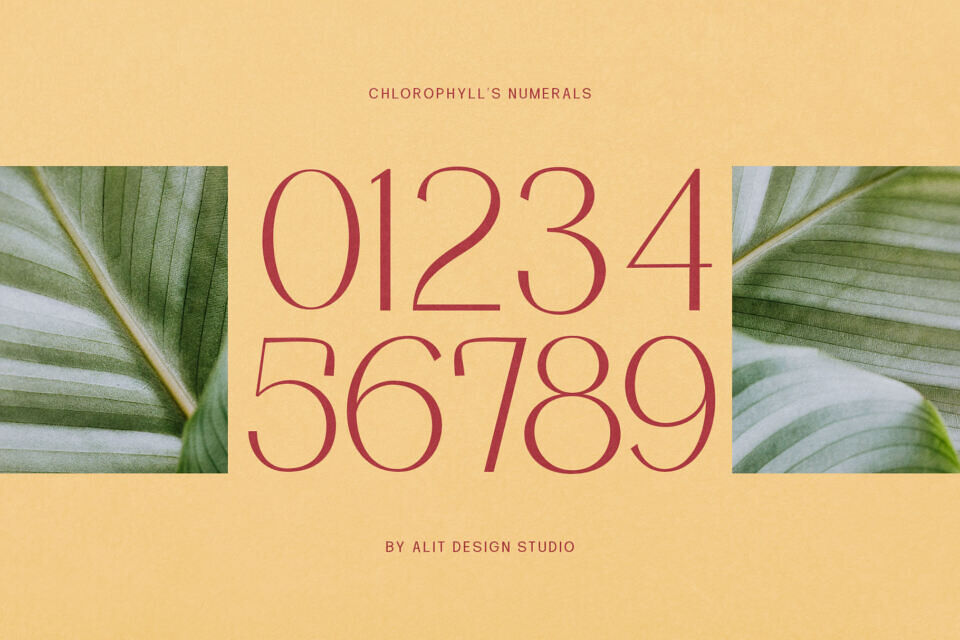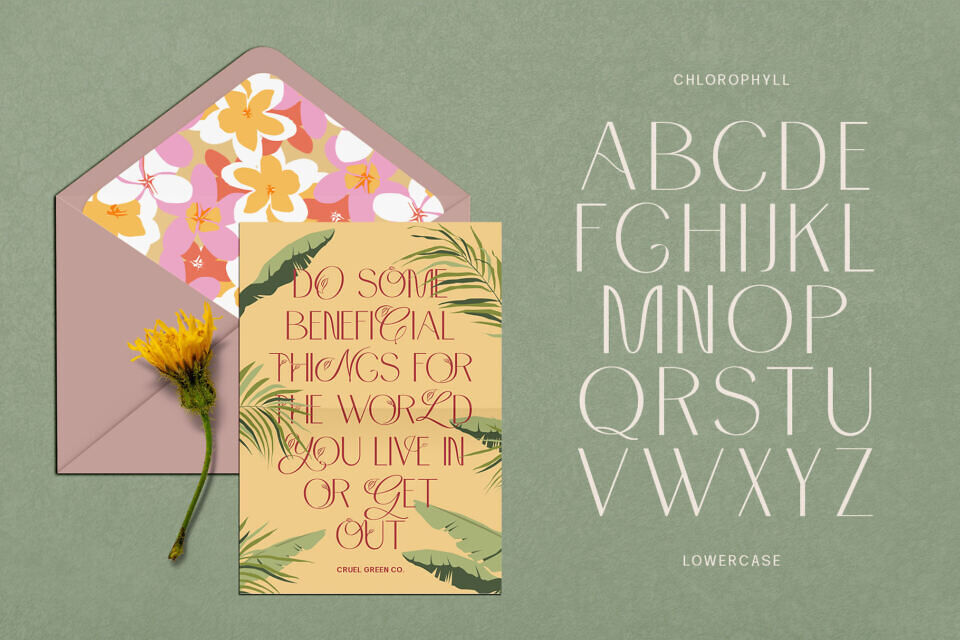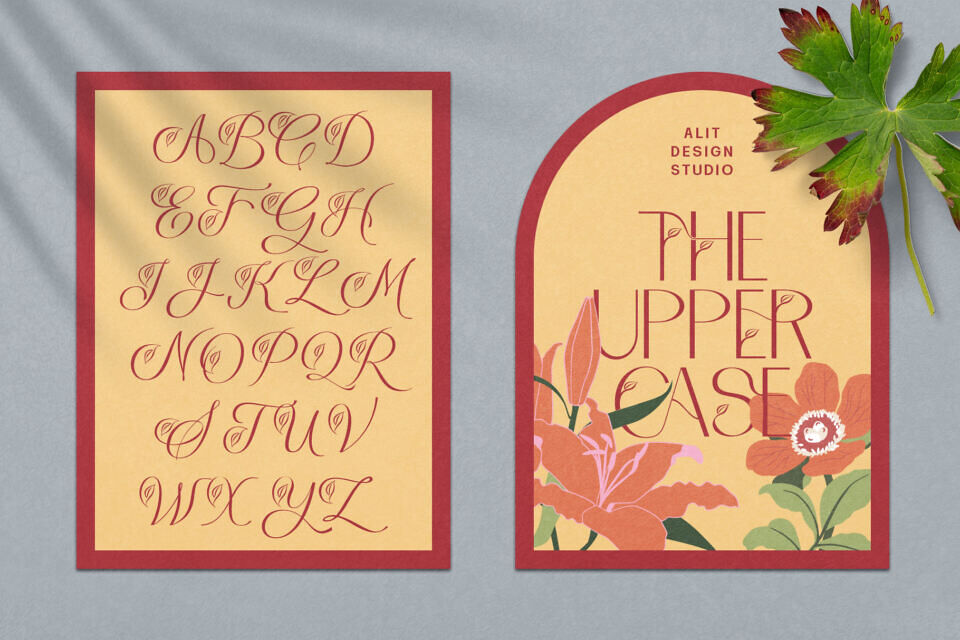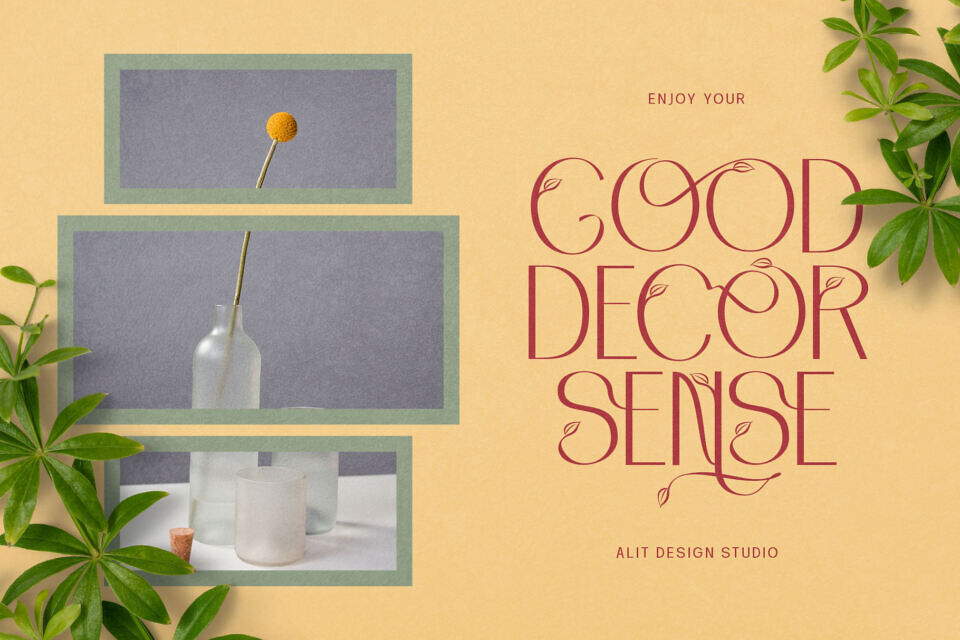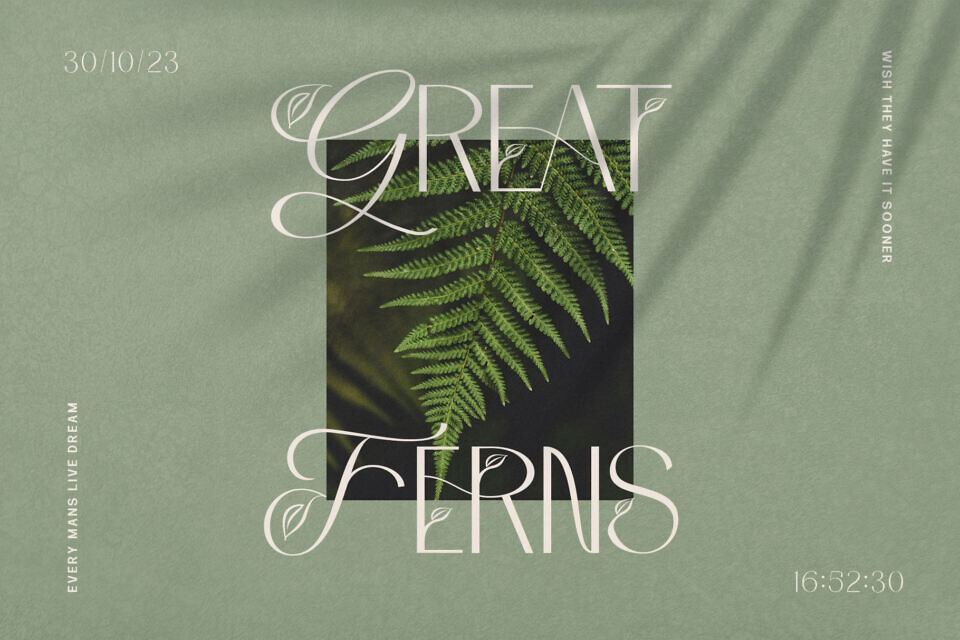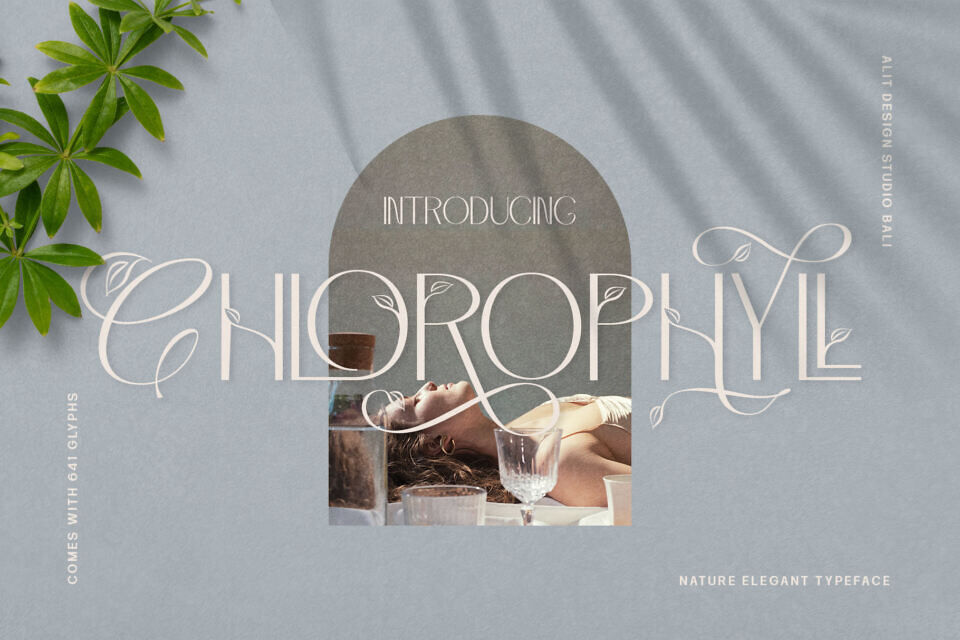
Chlorophyll Font
Chlorophyll is a refined sans serif font that blends modern simplicity with nature-inspired charm. Subtle leaf motifs enhance each character, creating a fresh, organic look. Perfect for eco-conscious branding, garden-themed invitations, or farm-to-table menus, Chlorophyll adds elegance and natural appeal to any project.
With a clean, versatile design and an extensive character set, it ensures readability and sophistication across digital and print formats. Let your designs bloom with Chlorophyll’s harmonious balance of minimalism and nature’s beauty.